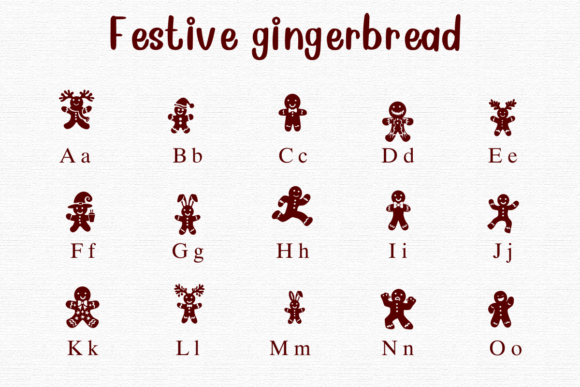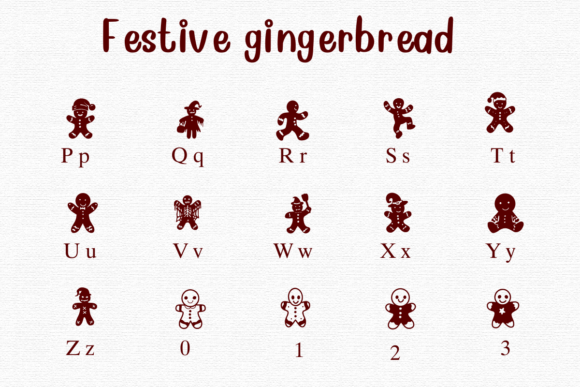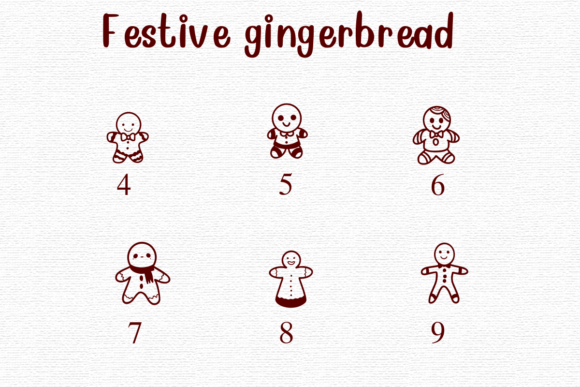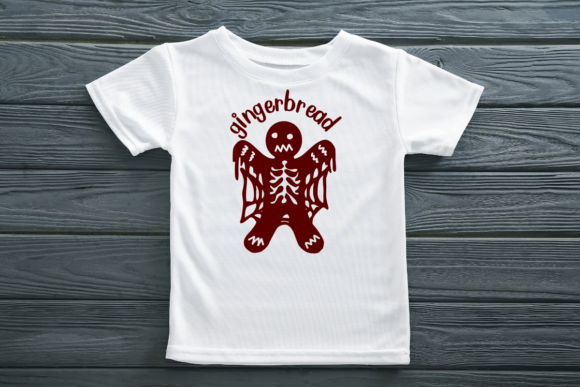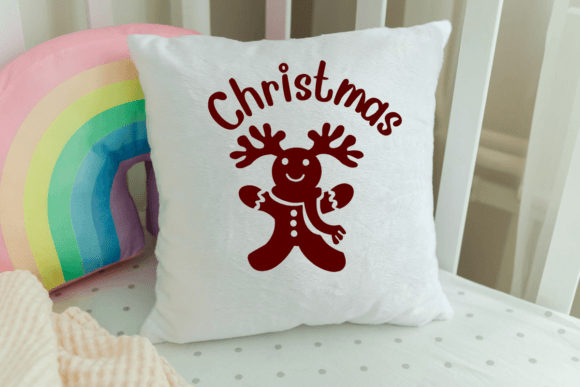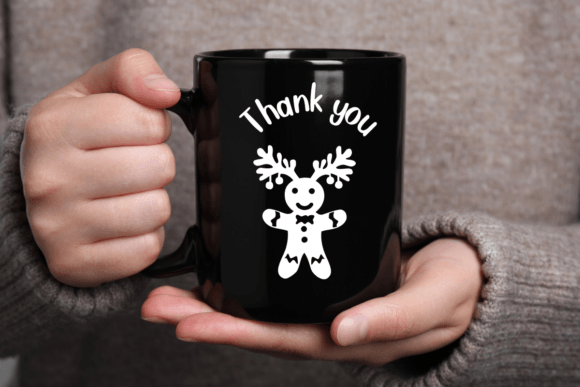
The Magic of Festive Gingerbread Font: A Designer’s Delight
I still remember the holiday season when I was working on a project to create festive holiday cards for a client. I had all the design elements ready, but I was struggling to find the perfect font that would capture the cheerful and playful spirit of the season. That’s when I stumbled upon the Festive Gingerbread font, and it instantly became the star of my design. In this article, I’ll share my experience with this delightful font, its features, and how to make the most of it in your designs.
An Honest Review of Festive Gingerbread Font
- ✨ The font is filled with adorable gingerbread men, making it perfect for holiday-themed designs.
- ✅ Each character is uniquely designed to look like a happy gingerbread man, adding a sweet touch to your projects.
- 🎉 The font is incredibly versatile and can be used for various design projects, from holiday cards to decorations.
- 👍 The dingbat font style allows for creative freedom and experimentation with different designs.
While Festive Gingerbread font is a delightful addition to any design project, there are a few things to keep in mind:
- ⚠️ The font might not be suitable for body text or lengthy content, as its playful nature is best suited for headings or titles.
- 🤔 Some characters might not be immediately recognizable, requiring a bit of experimentation to get the desired result.
The Story Behind Festive Gingerbread Font
The Festive Gingerbread font was designed by a talented type designer who wanted to capture the magic of the holiday season in a single font. Inspired by the joy and playfulness of gingerbread men, the designer created a font that would bring a smile to anyone’s face. With its unique characters and festive spirit, Festive Gingerbread font has become a favorite among designers and crafters.
| Font Name | Festive Gingerbread Font |
| Author | Nongyao |
| What type of projects is Festive Gingerbread font best suited for? | Festive Gingerbread font is perfect for holiday-themed designs, such as cards, decorations, and titles. |
| Is Festive Gingerbread font available in different styles or variations? | Currently, Festive Gingerbread font is available in a single style, but the designer may release variations or updates in the future. |